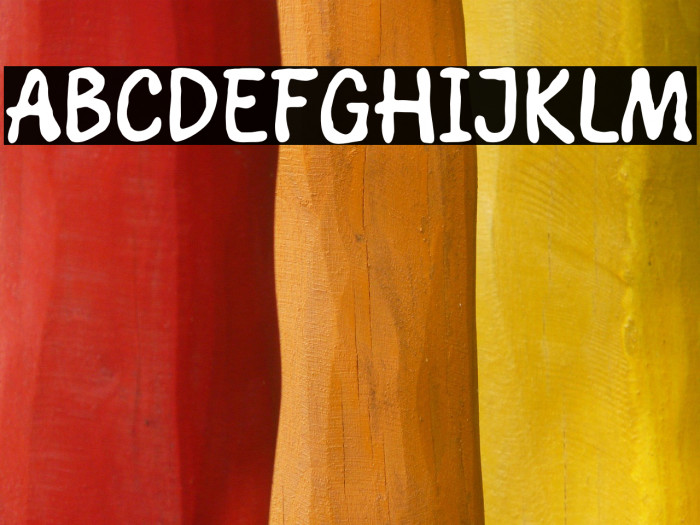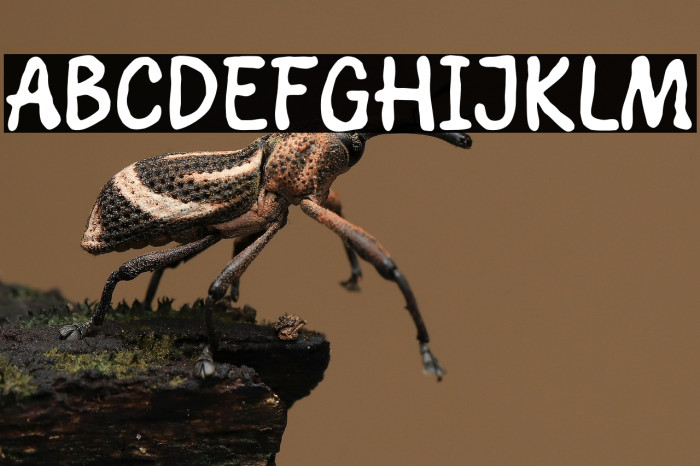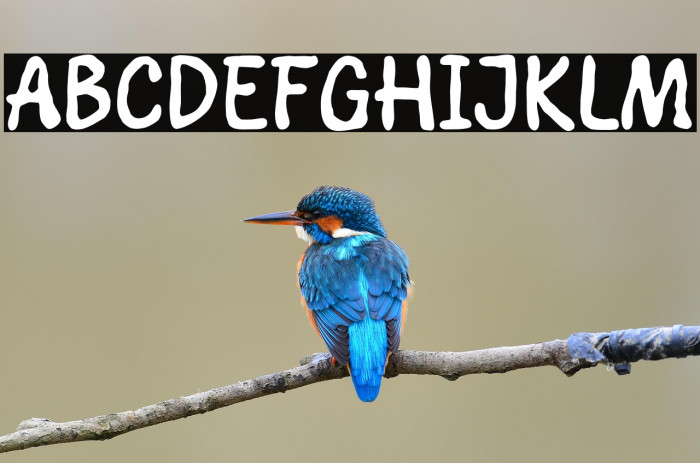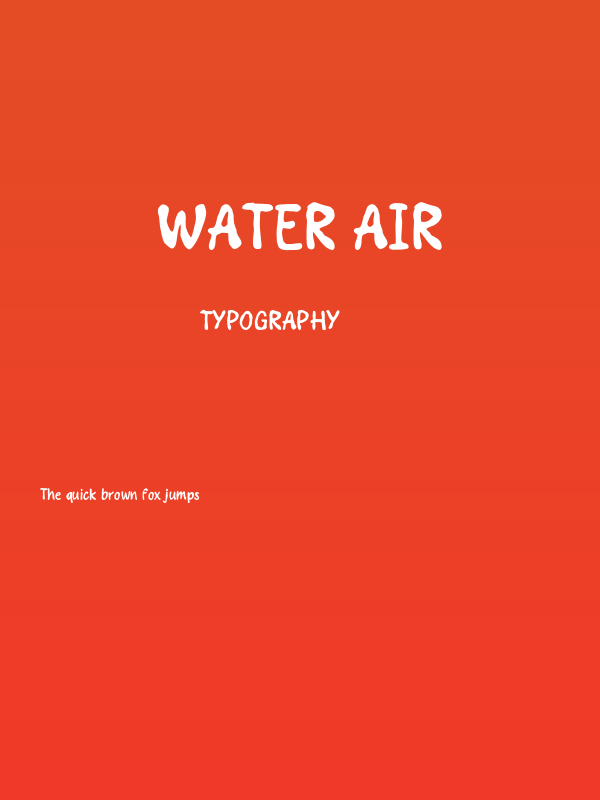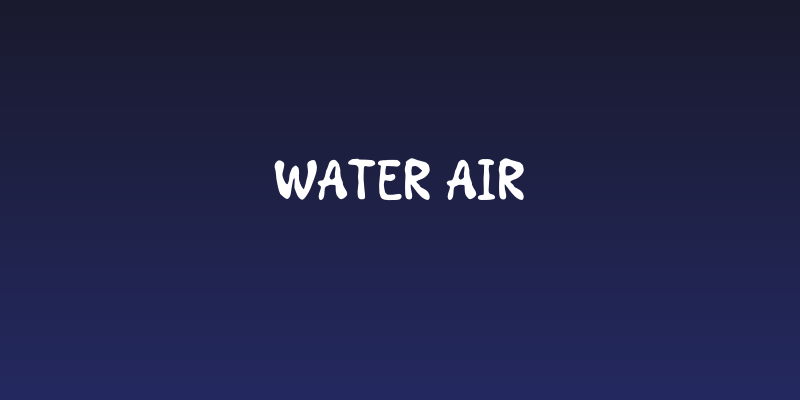
Water Air Font
Water Air Description
A playful, handwritten font with a casual and informal style, featuring irregular strokes and a slightly uneven baseline.
| Proposed Projects | Greeting cards, children's books, casual branding. |